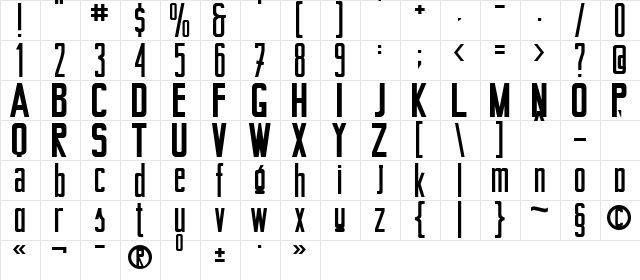
Berta_Drug Condensed DemiBold
Design Context for Berta_Drug Typeface
Berta_Drug is a composed and adaptable typeface that performs quietly and consistently across a wide range of design contexts. Its bold stroke weight gives it real presence on the page. The condensed width makes it efficient for tight spaces without sacrificing legibility.